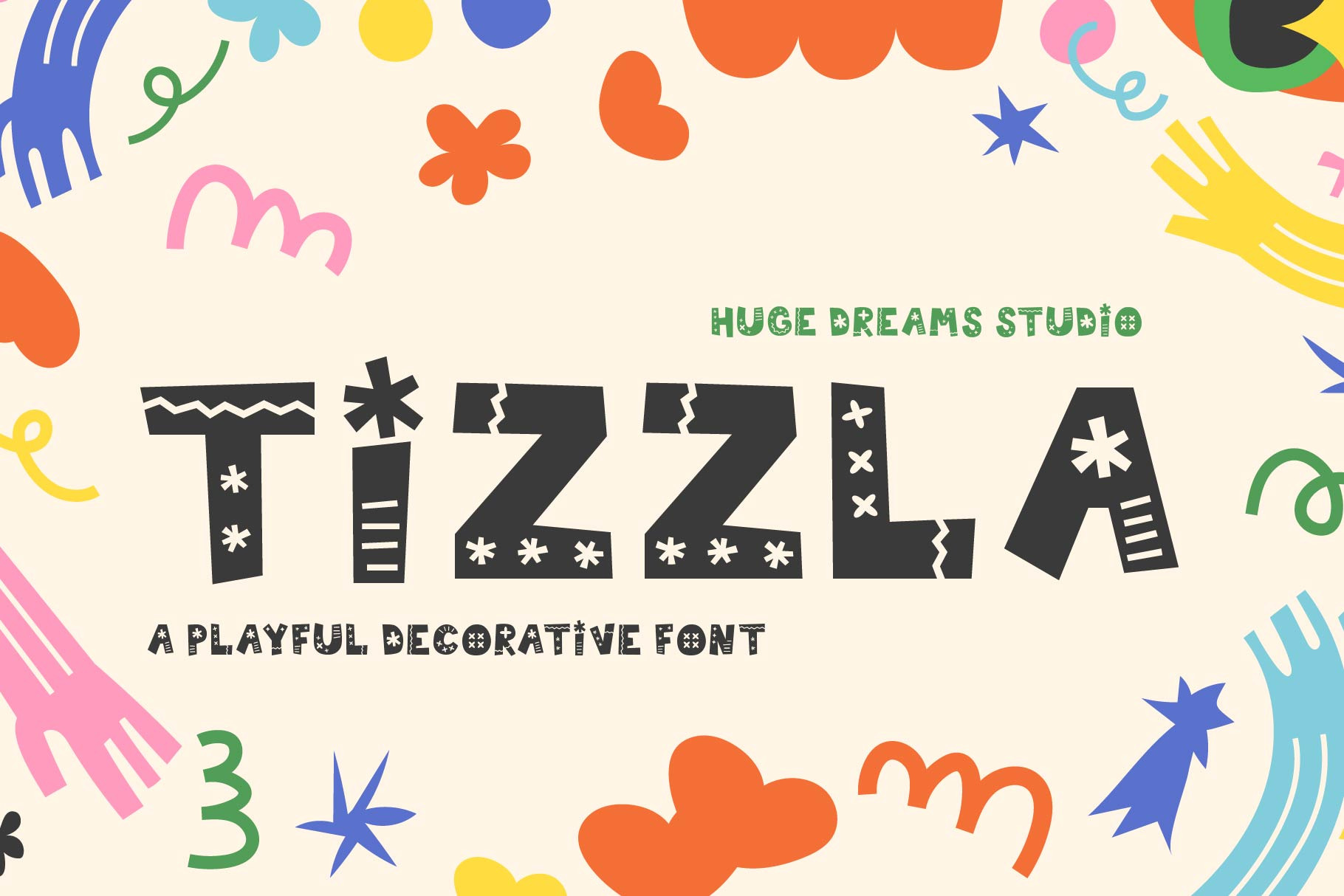
Tizzla – Cute Deco Sans Serif Font
Tizzla – Cute Deco Sans Serif Font is a playful yet stylish typeface that blends clean sans serif shapes with charming decorative touches. Its rounded edges and delightful details make it perfect for adding a fun, cheerful personality to your designs. Whether you’re working on branding, invitations, greeting cards, packaging, or social media graphics, Tizzla brings a fresh, modern, and adorable vibe.